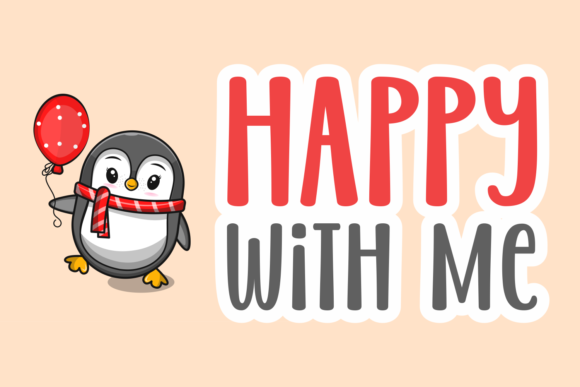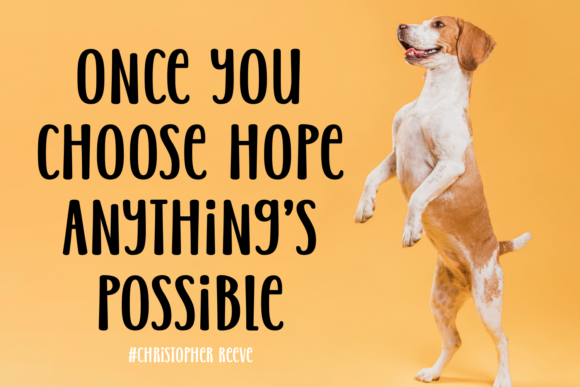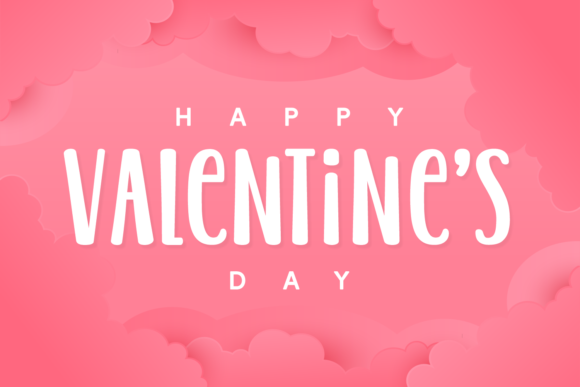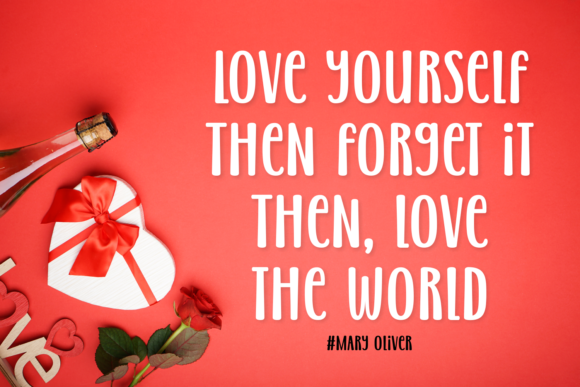
Introduction to Eloise Wynter Font
Eloise Wynter is a simple, quirky and adaptable display font.
Its informal style and casual vibe will make this font a go-to choice for each of the creations that require a relaxed touch .
Key Features of Eloise Wynter Font